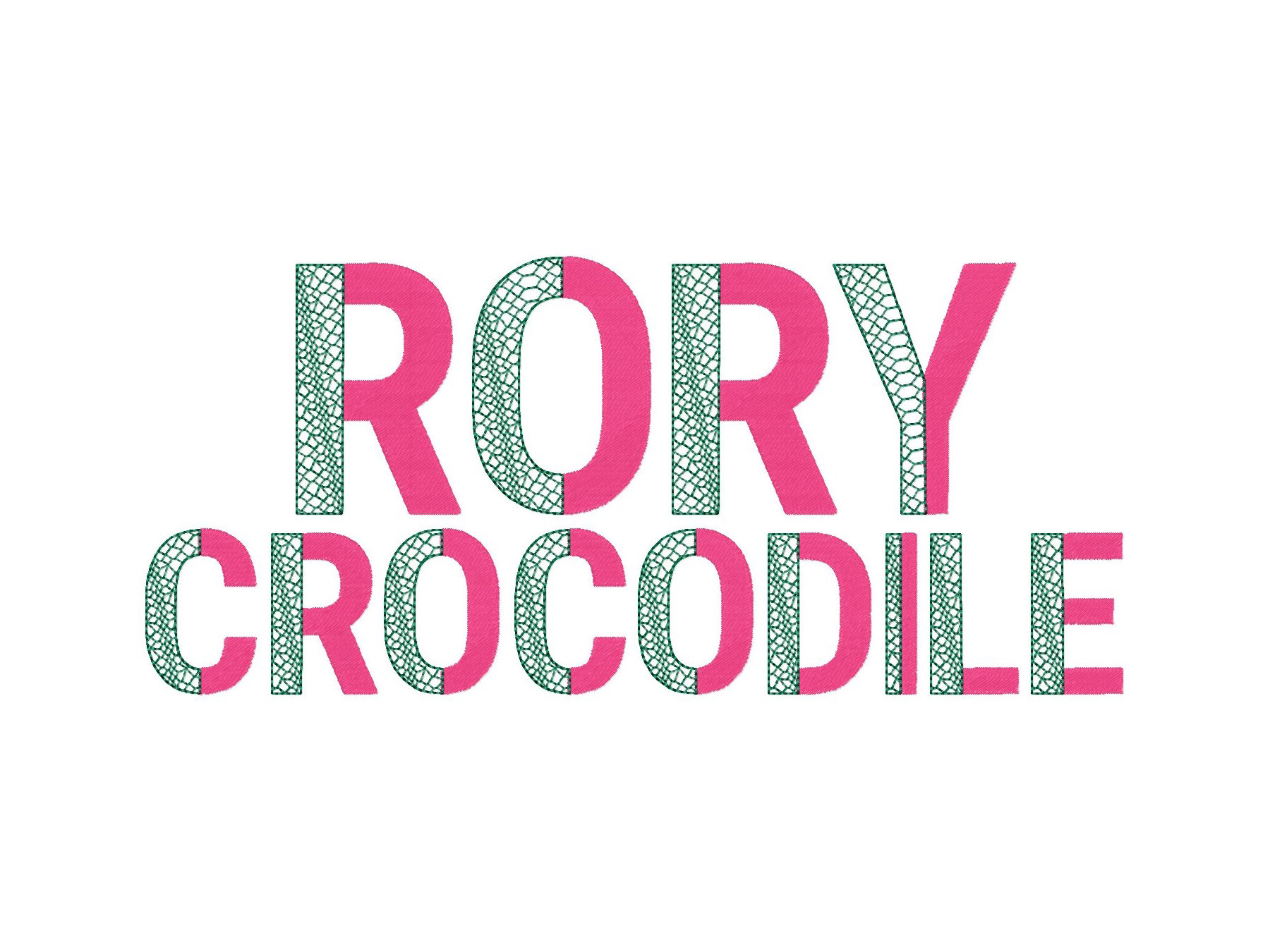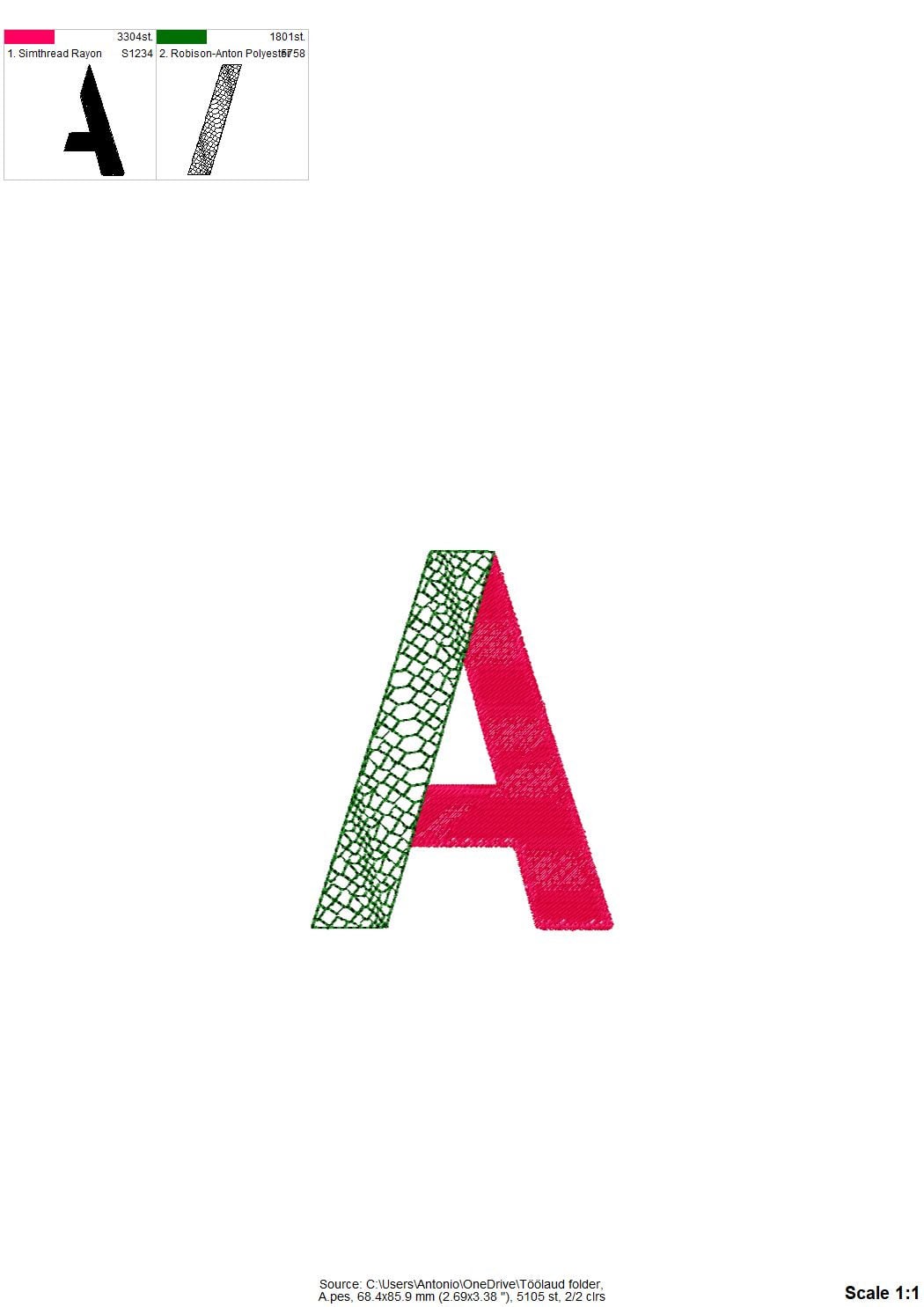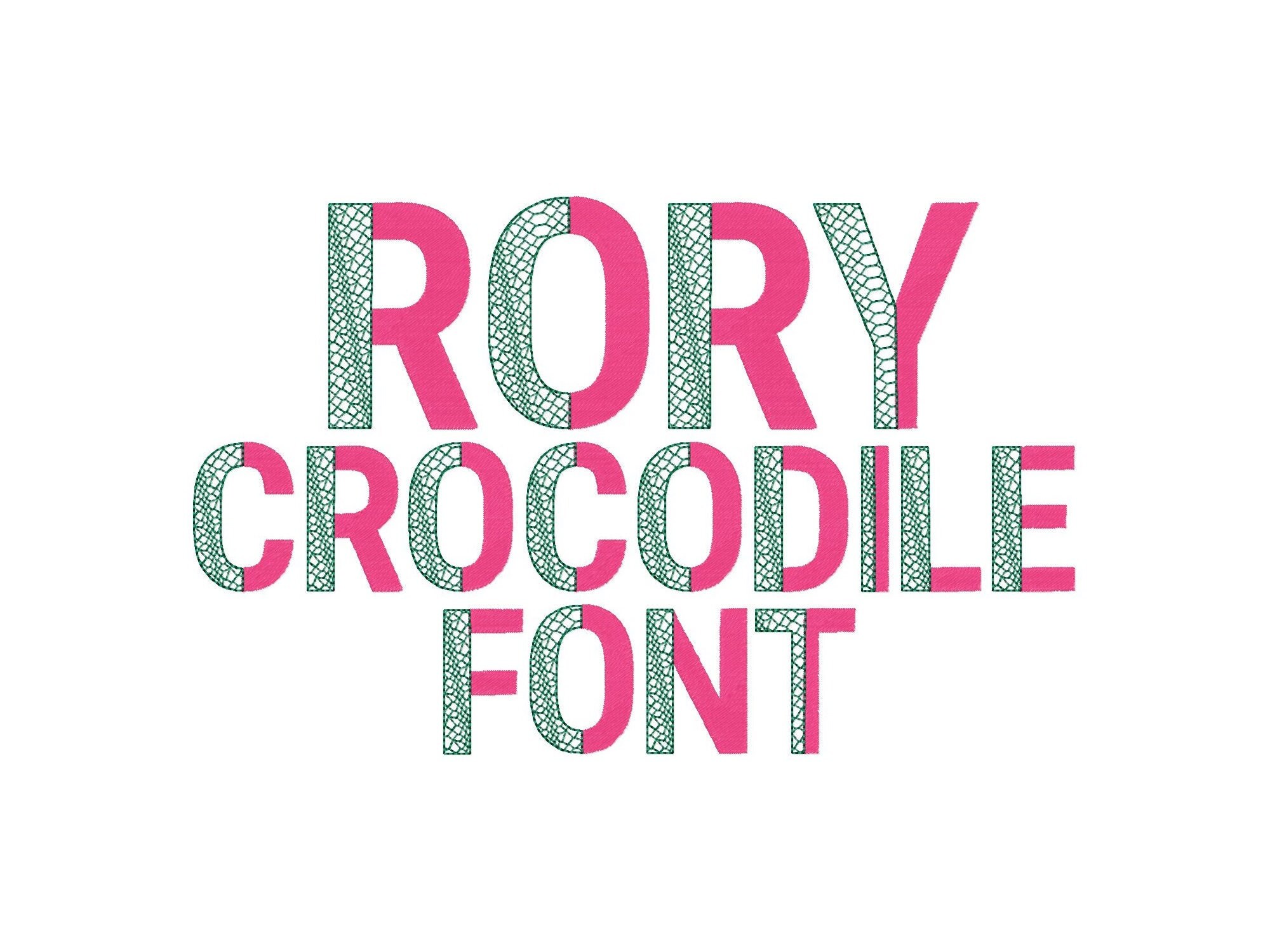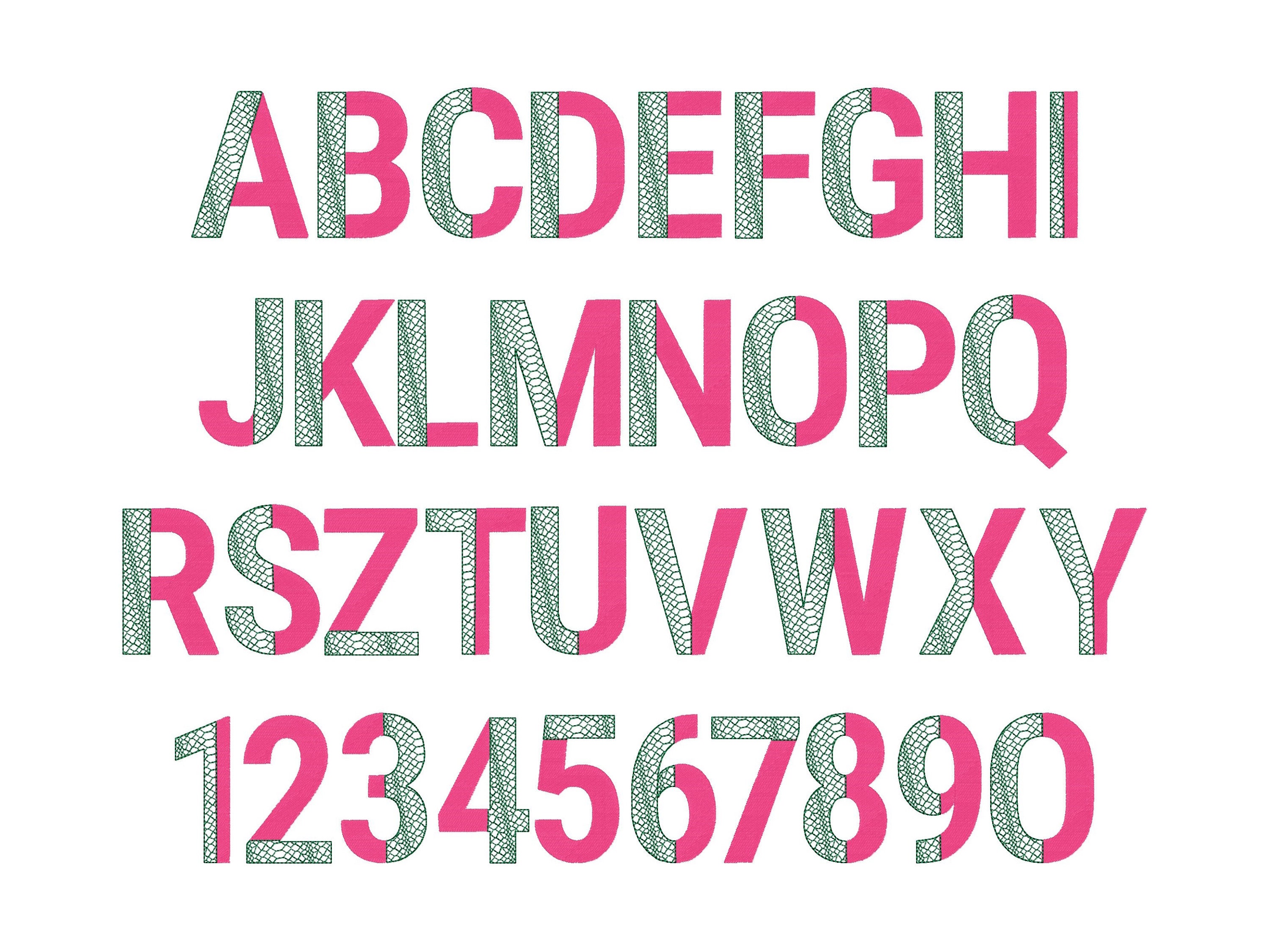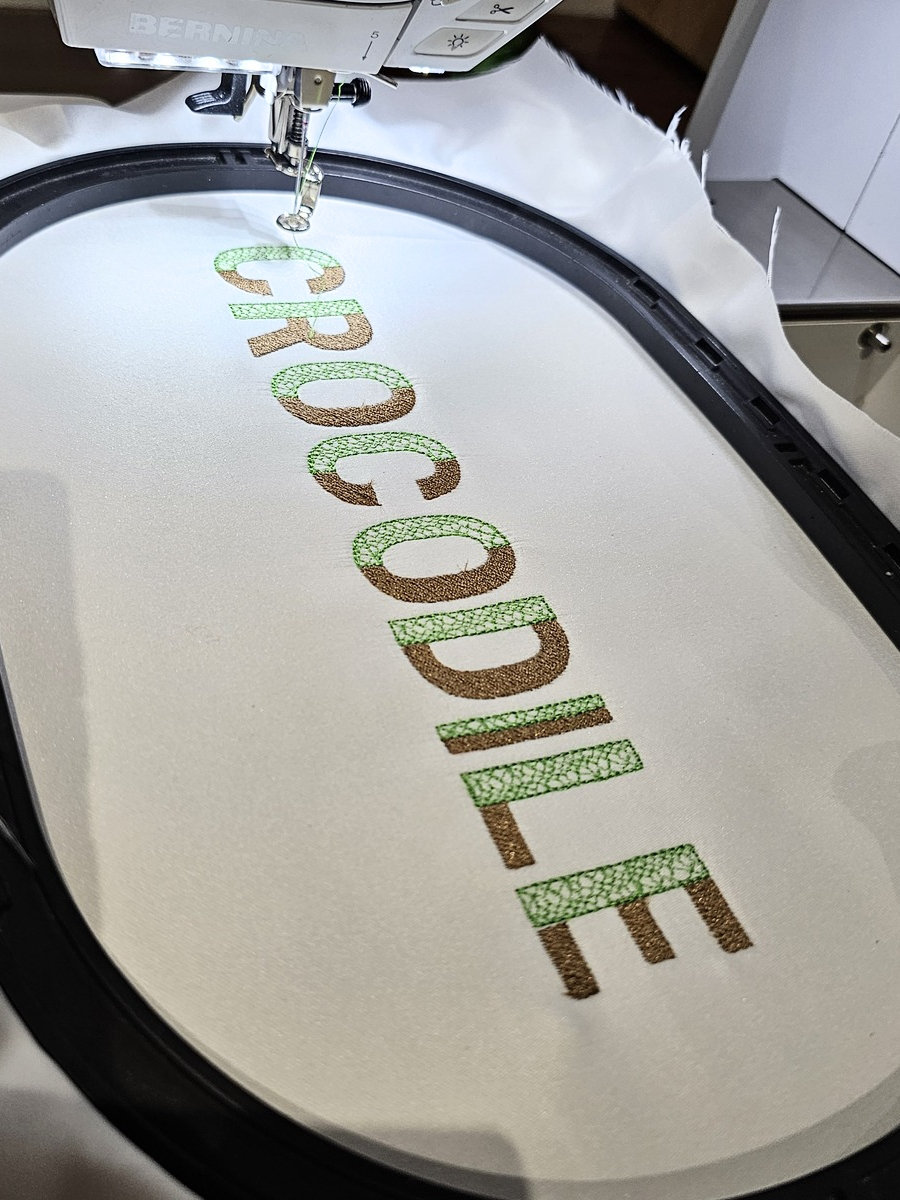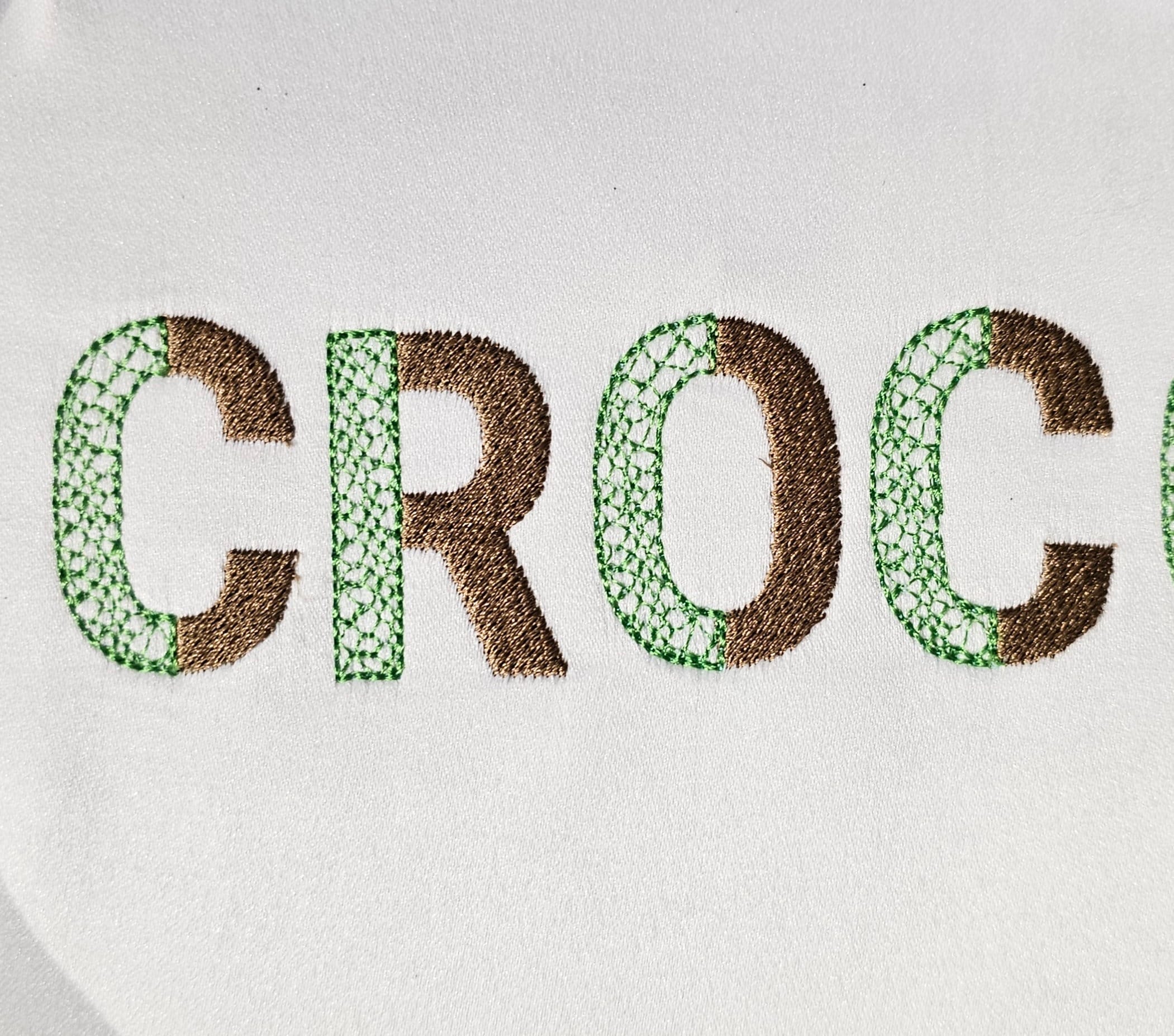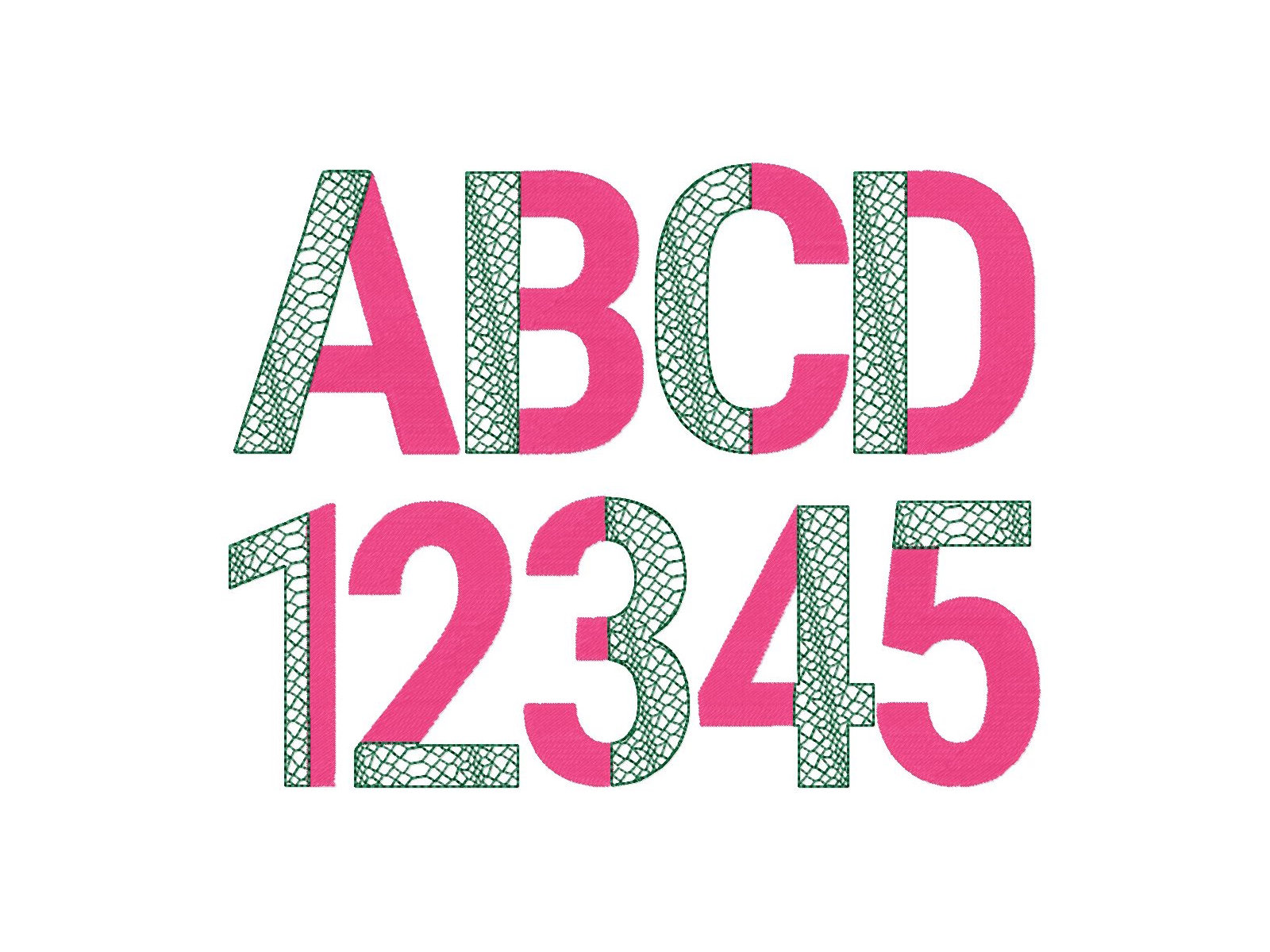
DUOTONE Split Font Crocodile print and fill stitch 2 color Font machine embroidery designs block alphabet monogram letters Duo color font
Crocodile print is a part of the design. The background fabric looks through. Stunning effect!
The plain part of the letters is a fill stitch.
Whole alphabet uppercase letters A-Z, numbers 0-9, and dot.